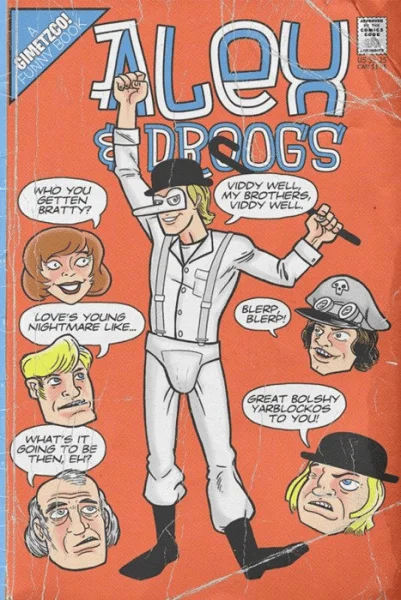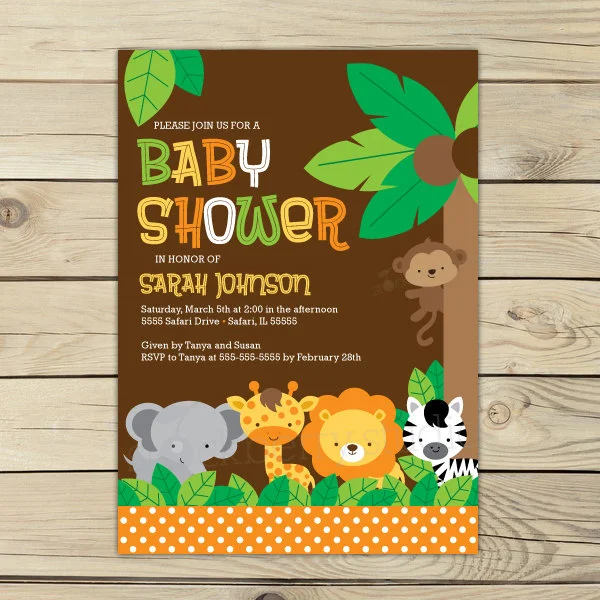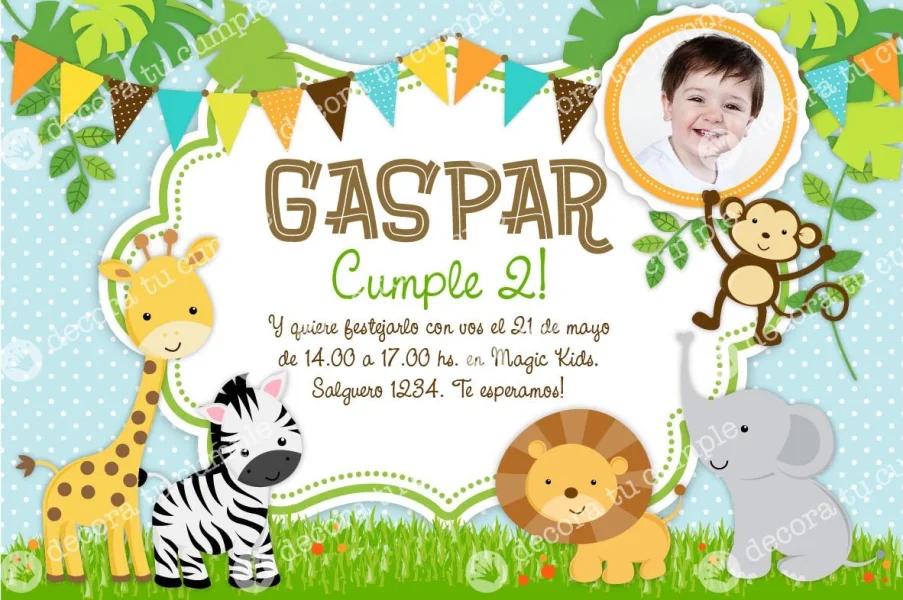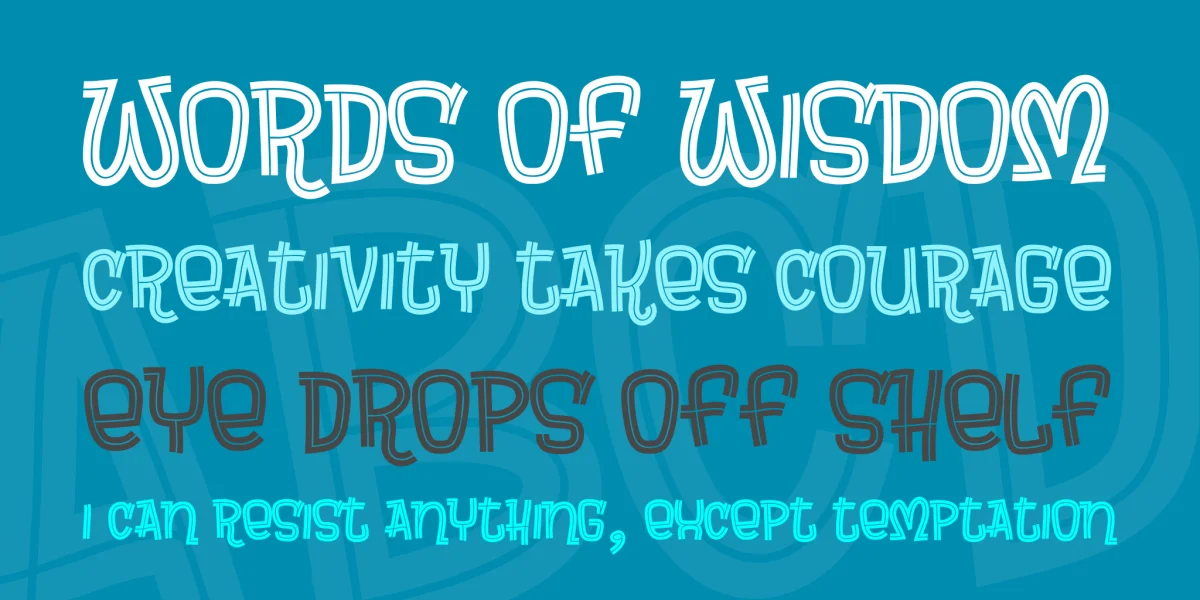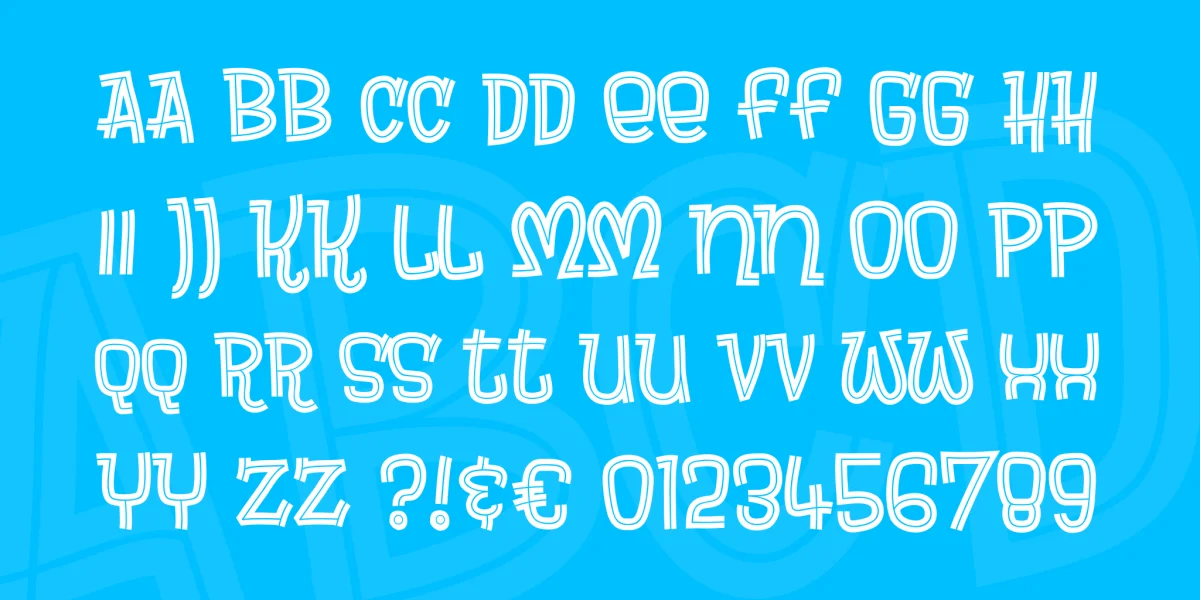
I wanted to make a font that looked like it could be used in a sixties ad for chewing gum. (And by the time I finished it I was thirsty, hence the name.)
I like the way it turned out, even if I do say so myself.